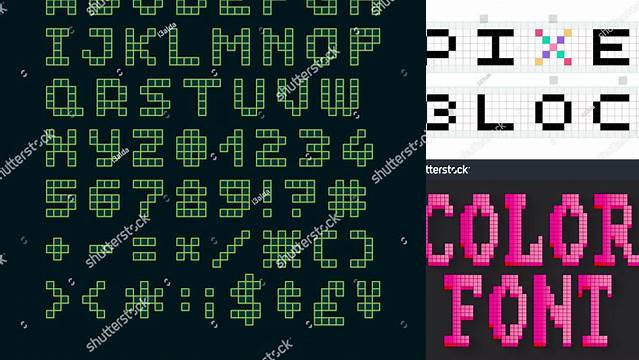
Hey guys! Are you looking to add a retro, techy, or unique touch to your designs? Pixel grid fonts are the perfect way to do it! These fonts, with their distinctive square or grid-like appearance, are inspired by old-school video games, early computer displays, and 8-bit graphics. They bring a nostalgic yet modern feel to any project, from logos and websites to posters and social media graphics. In this article, we're diving deep into the world of pixel grid fonts, exploring their uses, variations, and where you can find them for free. Let's get started!
Pixel Grid Fonts: An Introduction
So, what exactly are pixel grid fonts? As the name suggests, these fonts are constructed using a grid of pixels, creating a blocky, geometric aesthetic. This style harkens back to the early days of digital typography, where characters were literally built pixel by pixel on low-resolution screens. Today, pixel fonts are used intentionally to evoke a retro vibe, add a technical edge, or simply create visual interest. They're a fantastic choice when you want your typography to stand out and make a statement. Plus, there are tons of different styles and weights available, so you can find the perfect pixel font for your project. Whether you're designing a video game title, a futuristic website, or a cool poster, pixel grid fonts offer a unique and eye-catching solution. The beauty of these fonts lies in their simplicity and clarity, making them ideal for headlines, subheadings, and even short paragraphs. Let’s explore further and see how you can incorporate them into your work!
Using Pixel Grid Fonts in Design Projects
Using pixel grid fonts in your design projects can add a unique and retro touch that immediately grabs attention. These fonts are versatile and can be used in various creative applications, from website headers and logos to posters and game interfaces. When incorporating pixel fonts, it’s crucial to consider the overall tone and message of your design. These fonts often evoke a sense of nostalgia, so they work well for projects aiming for a vintage or techy feel. For example, if you’re designing a website for a retro gaming blog, a pixel font could be perfect for the headers and call-to-action buttons. In logo design, pixel fonts can give your brand a distinctive identity, especially if you’re targeting a tech-savvy audience. However, be mindful of readability, particularly in smaller sizes. It’s generally best to use pixel fonts for headlines and short text elements rather than lengthy paragraphs. Experiment with different font weights and sizes to find the right balance between style and clarity. By thoughtfully integrating pixel grid fonts into your projects, you can create designs that are both visually appealing and memorable.
Pixel Grid Fonts for Gaming
Pixel grid fonts are practically synonymous with the gaming world. Their blocky, retro aesthetic perfectly complements the visuals of classic video games and adds a touch of authenticity to modern indie games. If you're developing a game with a retro theme, using a pixel font for the interface, menus, and in-game text is almost essential. These fonts evoke a sense of nostalgia and instantly transport players back to the golden age of gaming. Moreover, pixel fonts are highly legible, even at small sizes, making them ideal for displaying scores, messages, and other important information on the screen. When choosing a pixel font for your game, consider the overall style and tone. A chunky, bold pixel font might be perfect for an action-packed arcade game, while a more refined pixel font could suit a puzzle or strategy game. Don't be afraid to experiment with different fonts to see what works best. Many game developers also use pixel fonts in their marketing materials, such as trailers and promotional graphics, to reinforce the game's visual identity. So, whether you're designing a retro-inspired platformer or a modern indie title, pixel grid fonts are a fantastic way to enhance the gaming experience.
Pixel Grid Fonts for Web Design
Incorporating pixel grid fonts into web design can give your site a unique and memorable look. These fonts are particularly effective for websites aiming for a retro, techy, or minimalist aesthetic. Pixel fonts can add character and personality to your headers, navigation menus, and other key design elements. When using pixel fonts on the web, it's crucial to consider readability. Due to their blocky nature, pixel fonts can sometimes be challenging to read at smaller sizes. Therefore, it's generally best to use them for headlines, short text snippets, and other prominent areas where legibility is less of a concern. You can also experiment with different font weights and sizes to optimize readability. Another important factor to consider is the overall design of your website. Pixel fonts work best when paired with clean, simple layouts and a limited color palette. This helps to maintain a cohesive and visually appealing look. Additionally, make sure the pixel font you choose is web-friendly and loads quickly to avoid slowing down your site's performance. By carefully integrating pixel grid fonts into your web design, you can create a site that stands out and effectively communicates your brand's message.
Pixel Grid Fonts and 8-bit Graphics
Pixel grid fonts and 8-bit graphics go hand in hand, forming a perfect match for designs that evoke a retro, nostalgic feel. The 8-bit aesthetic, characterized by its blocky, pixelated look, was prevalent in early video games and computer graphics. Using pixel fonts alongside 8-bit graphics creates a cohesive and authentic retro vibe. This combination is ideal for projects that aim to transport viewers back to the golden age of gaming or technology. When working with 8-bit graphics, pixel fonts provide the perfect textual complement, ensuring that all elements of your design align stylistically. Whether you're creating a retro game, a website with a vintage theme, or a social media campaign that taps into nostalgia, pixel fonts and 8-bit graphics are a winning combination. The key is to maintain consistency in the pixelation and blockiness across both the text and the visuals. This creates a unified and visually appealing design that captures the essence of the 8-bit era. So, embrace the pixelated charm and let your creativity flow!
Creating Your Own Pixel Grid Font
Ever thought about creating your own pixel grid font? It might sound intimidating, but it's actually a fun and rewarding process that allows you to craft a truly unique typeface. There are several software options available for font creation, ranging from free online tools to professional-grade applications. FontStruct is a popular free platform that’s specifically designed for creating grid-based fonts, making it an excellent choice for pixel fonts. For more advanced features and control, you might consider using software like FontLab or Glyphs. The basic process involves drawing each character on a pixel grid, carefully shaping the letters to achieve the desired look. It’s important to pay attention to spacing and kerning to ensure readability. Start by designing the basic alphabet (uppercase and lowercase), then move on to numbers, punctuation, and symbols. As you create your font, test it frequently in different sizes and contexts to see how it performs. Creating your own pixel grid font gives you complete creative control and allows you to develop a typeface that perfectly matches your unique style and design needs. So, why not give it a try and unleash your inner font designer?
Pixel Grid Font Styles and Variations
The world of pixel grid fonts is incredibly diverse, offering a wide range of styles and variations to suit any design project. From classic 8-bit fonts reminiscent of early video games to more modern and stylized pixel typefaces, there's a pixel font for every aesthetic. Some pixel fonts feature sharp, angular edges, while others have rounded corners for a softer look. Font weights can also vary significantly, with some pixel fonts being bold and chunky, and others being thin and delicate. Additionally, there are pixel fonts with unique embellishments and decorative elements, such as drop shadows, outlines, and textured fills. When choosing a pixel font, consider the overall tone and message of your design. A bold, blocky pixel font might be perfect for a high-energy project, while a more refined pixel font could be better suited for a sophisticated design. Experimenting with different styles and variations is key to finding the perfect pixel font that aligns with your creative vision. So, explore the vast landscape of pixel grid fonts and discover the endless possibilities!
Pixel Grid Font Generators Online
If you're looking for a quick and easy way to create pixelated text, online pixel grid font generators are your best friend. These tools allow you to instantly transform regular text into pixel-style lettering without the need for any specialized software or design skills. Many online generators offer customizable options, such as pixel size, font color, and background color, allowing you to tailor the output to your specific needs. Some generators even provide a selection of pre-designed pixel font styles to choose from, making the process even simpler. While these generators are great for creating quick mockups or graphics, they may not offer the same level of control and customization as dedicated font creation software. However, for simple projects or when you're on a tight deadline, online pixel grid font generators can be a lifesaver. Just type in your text, tweak the settings, and download your pixelated masterpiece in seconds. So, embrace the convenience and speed of online pixel font generators for your next project!
Best Pixel Grid Fonts for Logos
Choosing the right font for a logo is crucial, and pixel grid fonts can bring a unique, memorable touch to your brand identity. These fonts are particularly effective for tech companies, gaming brands, and businesses aiming for a retro or futuristic vibe. The blocky, geometric nature of pixel fonts can convey a sense of innovation, technology, and nostalgia, making them a compelling choice for logos. When selecting a pixel font for your logo, consider your brand's personality and target audience. A bold, impactful pixel font can make a strong statement, while a more refined pixel font can project a sense of sophistication. Ensure the font is legible and scalable, so your logo looks great in various sizes and applications. Some popular pixel grid fonts for logos include Press Start 2P, Pixelify Sans, and 8-Bit Operator. Experiment with different fonts and variations to find the perfect typeface that captures the essence of your brand. Remember, a well-chosen pixel font can make your logo stand out and leave a lasting impression.
Pixel Grid Fonts for Social Media
In the fast-paced world of social media, grabbing attention is key, and pixel grid fonts can help you do just that. These fonts add a unique and eye-catching element to your social media graphics, posts, and profile designs. Whether you're creating Instagram stories, Twitter headers, or Facebook ads, pixel fonts can help your content stand out from the crowd. Their retro, techy vibe is particularly appealing to audiences interested in gaming, technology, and vintage aesthetics. When using pixel fonts on social media, consider the platform's visual style and your brand's overall identity. A bold, playful pixel font might be perfect for a fun, lighthearted brand, while a more minimalist pixel font could suit a sophisticated brand. Make sure the font is legible, especially on smaller screens, and use it sparingly to avoid overwhelming your audience. Pixel fonts can be particularly effective for creating eye-catching headlines, captions, and call-to-action buttons. So, add a touch of pixelated flair to your social media presence and watch your engagement soar!
Pixel Grid Fonts and Typography Trends
Pixel grid fonts are more than just a retro throwback; they're a significant part of contemporary typography trends. The resurgence of pixel fonts reflects a broader interest in vintage aesthetics and digital nostalgia. These fonts offer a unique blend of retro charm and modern appeal, making them a popular choice for designers seeking to create visually striking and memorable designs. Pixel fonts are often used in combination with other modern typography styles to create interesting contrasts and visual hierarchies. Their distinct character makes them ideal for headlines, subheadings, and other prominent text elements. The current trend of incorporating pixel fonts into web design, branding, and marketing materials demonstrates their versatility and enduring appeal. As typography trends continue to evolve, pixel grid fonts are likely to remain a relevant and impactful choice for designers looking to add a touch of retro-futuristic flair to their work. So, stay ahead of the curve and embrace the pixelated revolution!
Pixel Grid Fonts in UI/UX Design
In the realm of UI/UX design, pixel grid fonts can be a powerful tool for creating interfaces that are both visually appealing and functional. These fonts can add a distinctive touch to your designs, especially when targeting users who appreciate a retro or tech-inspired aesthetic. Pixel fonts are particularly well-suited for interfaces that aim to evoke a sense of nostalgia, such as those for gaming apps or vintage-themed software. However, it's crucial to use pixel fonts judiciously in UI/UX design to ensure readability and usability. Due to their blocky nature, pixel fonts can sometimes be challenging to read at smaller sizes or in dense text blocks. Therefore, it's best to use them sparingly, focusing on headlines, labels, and other key elements. Additionally, consider the overall color scheme and contrast to optimize legibility. A well-chosen pixel font can enhance the user experience by adding personality and character to your interface, but it's essential to balance style with functionality. So, leverage the unique charm of pixel grid fonts to create UI/UX designs that are both engaging and user-friendly.
Pixel Grid Fonts for Print Design
While pixel grid fonts are often associated with digital media, they can also be effectively used in print design. These fonts can add a unique and eye-catching element to posters, flyers, brochures, and other printed materials. When incorporating pixel fonts into print design, it's important to consider the resolution and printing process. Pixel fonts tend to look best when printed at a high resolution to maintain their crisp, blocky appearance. Also, be mindful of the font size and readability, especially for smaller text elements. Pixel fonts can be particularly effective for headlines, subheadings, and other display text, adding a retro or techy touch to your print designs. They can also be used to create visually interesting patterns and textures. When pairing pixel fonts with other typefaces in print design, consider using clean, modern fonts for body text to create a balanced and legible layout. By thoughtfully integrating pixel grid fonts into your print projects, you can create designs that are both visually striking and memorable.
Pixel Grid Fonts: Legality and Licensing
When using pixel grid fonts in your projects, it's crucial to understand the legal aspects and licensing requirements. Like all fonts, pixel fonts are protected by copyright law, and their usage is governed by licensing agreements. Many free pixel fonts are available for personal use, but commercial use may require a specific license. Before using a pixel font in a commercial project, such as a logo, website, or marketing materials, carefully review the font's licensing terms. Websites like DaFont and Fontspace provide clear information about the licensing terms for each font they offer. If you're unsure about the licensing requirements, it's always best to contact the font's creator or distributor for clarification. Using a font without the appropriate license can lead to legal issues, so it's essential to ensure you have the necessary permissions. By respecting font licensing agreements, you support font designers and contribute to a fair and sustainable design ecosystem. So, always check the fine print and ensure you're using pixel grid fonts legally and ethically.
Pixel Grid Fonts and Nostalgia in Design
Pixel grid fonts are powerful tools for evoking nostalgia in design. Their blocky, retro aesthetic instantly transports viewers back to the early days of computers, video games, and digital technology. This nostalgic appeal makes pixel fonts a popular choice for projects that aim to connect with audiences on an emotional level. By using pixel fonts, designers can tap into the collective memory of a bygone era, creating a sense of familiarity and warmth. Pixel fonts are particularly effective for projects targeting audiences who grew up with 8-bit and 16-bit graphics, as they evoke a strong sense of childhood memories. Whether you're designing a retro-themed website, a vintage-inspired logo, or a nostalgic marketing campaign, pixel grid fonts can help you create a powerful connection with your audience. The key is to use them strategically, pairing them with other retro elements to create a cohesive and authentic look. So, harness the power of nostalgia and let pixel fonts add a touch of retro charm to your designs.
Pixel Grid Fonts in Game Development
In game development, pixel grid fonts are an indispensable element for creating authentic retro-style games. These fonts perfectly complement the pixelated visuals of classic video games, adding a touch of nostalgia and enhancing the overall gaming experience. Whether you're developing an 8-bit platformer, a 16-bit RPG, or any other type of retro game, pixel fonts are essential for UI elements, in-game text, and marketing materials. Their blocky, geometric appearance is instantly recognizable and evokes a strong sense of gaming history. When choosing a pixel font for your game, consider the game's style and tone. A chunky, bold pixel font might be ideal for an action-packed arcade game, while a more refined pixel font could suit a puzzle or strategy game. Legibility is also crucial, especially for small text elements such as scores and messages. Many game developers create custom pixel fonts to match their game's unique aesthetic. So, embrace the pixelated charm and let pixel grid fonts help you create a truly immersive and nostalgic gaming experience.
Combining Pixel Grid Fonts with Other Fonts
One of the most effective ways to use pixel grid fonts is by combining them with other font styles. This technique allows you to create visually interesting and dynamic typography that stands out. When pairing pixel fonts with other fonts, it's essential to consider contrast and balance. Pixel fonts often work well with clean, modern sans-serif fonts, which provide a sharp contrast to their blocky, retro appearance. You can use pixel fonts for headlines and subheadings, and a clean sans-serif font for body text, creating a clear visual hierarchy. Alternatively, you can pair pixel fonts with other retro-inspired fonts to create a cohesive vintage look. Experiment with different font combinations to find the perfect balance for your design. Avoid using too many fonts in a single design, as this can create a cluttered and confusing look. By carefully combining pixel grid fonts with other fonts, you can create typography that is both visually appealing and highly legible. So, explore the possibilities and let your creativity shine!
Pixel Grid Fonts and Brand Identity
Using pixel grid fonts in your brand identity can give your brand a unique and memorable personality. These fonts are particularly effective for brands that want to convey a sense of innovation, technology, or nostalgia. Pixel fonts can help your brand stand out from the competition and create a lasting impression on your target audience. When incorporating pixel fonts into your brand identity, consider your brand's values and target market. A pixel font might be perfect for a tech startup, a gaming company, or a brand that embraces a retro aesthetic. However, it might not be the best choice for a luxury brand or a company that wants to project a more traditional image. Ensure the pixel font you choose aligns with your brand's overall visual identity and message. Use it consistently across your logo, website, marketing materials, and social media presence to create a cohesive brand experience. A well-chosen pixel font can be a powerful tool for building brand recognition and loyalty. So, explore the possibilities and let pixel grid fonts help you create a brand identity that is both distinctive and impactful.
Pixel Grid Fonts in Motion Graphics
In motion graphics, pixel grid fonts can add a dynamic and engaging element to your animations and video projects. These fonts are particularly well-suited for projects that aim to create a retro, techy, or futuristic vibe. Pixel fonts can be used for titles, credits, lower thirds, and other on-screen text elements. Their blocky, geometric appearance creates a visually striking effect that grabs attention. When using pixel fonts in motion graphics, consider the animation style and pacing. Pixel fonts often work well with fast-paced, energetic animations that reflect their retro-digital aesthetic. You can also use them to create interesting transitions and visual effects. Experiment with different font weights, sizes, and colors to find the perfect look for your project. Ensure the font is legible, especially for short on-screen durations. By thoughtfully incorporating pixel grid fonts into your motion graphics, you can create videos and animations that are both visually compelling and memorable. So, add a touch of pixelated flair to your motion graphics and watch your projects come to life!
Pixel Grid Fonts for Retro-Themed Projects
If you're working on a retro-themed project, pixel grid fonts are an absolute must-have. These fonts are essential for capturing the authentic look and feel of classic video games, vintage computers, and early digital technology. Whether you're designing a retro website, a vintage-inspired poster, or a nostalgic marketing campaign, pixel fonts can help you transport your audience back in time. Their blocky, geometric appearance is instantly recognizable and evokes a strong sense of nostalgia. When using pixel fonts for retro-themed projects, consider the specific era or style you're trying to emulate. Different pixel fonts can evoke different periods and aesthetics. For example, a chunky, 8-bit pixel font might be perfect for a project inspired by early arcade games, while a more refined pixel font could suit a design that references 16-bit consoles. Pay attention to the details, such as color palettes and graphic elements, to create a cohesive and authentic retro look. Pixel grid fonts are the key to unlocking the nostalgic charm of your retro-themed projects. So, embrace the vintage vibes and let your creativity flow!
Pixel Grid Fonts for Sci-Fi Designs
For sci-fi designs, pixel grid fonts can bring a unique blend of retro and futuristic aesthetics. These fonts evoke a sense of technology, innovation, and a connection to the digital age, making them a great fit for projects set in a cyberpunk or retro-futuristic world. The blocky, geometric style of pixel fonts can suggest the interfaces and displays of advanced technology, while their vintage feel adds a layer of depth and history to your designs. When incorporating pixel fonts into sci-fi projects, consider the overall tone and setting. A bold, angular pixel font might be perfect for a gritty, dystopian design, while a more streamlined pixel font could suit a sleek, futuristic aesthetic. Experiment with different font weights and sizes to create visual hierarchy and emphasis. Pair pixel fonts with other sci-fi design elements, such as neon colors, geometric patterns, and circuit board textures, to create a cohesive and immersive visual experience. So, let pixel grid fonts add a touch of technological flair to your sci-fi designs and transport your audience to another world!
Optimizing Pixel Grid Fonts for Readability
While pixel grid fonts are visually striking, they can sometimes be challenging to read, especially at smaller sizes. Optimizing pixel fonts for readability is crucial, particularly when using them in UI/UX design or for body text. Here are some tips for enhancing the legibility of pixel fonts: Choose a font with clear letterforms and adequate spacing. Some pixel fonts have more distinct characters than others, making them easier to read. Increase the font size. Pixel fonts tend to be more legible at larger sizes, so don't be afraid to bump up the font size. Adjust the letter spacing and line height. Adding a little extra space between letters and lines can significantly improve readability. Use a high-contrast color scheme. Ensure there's a strong contrast between the text color and the background color to make the text stand out. Avoid using pixel fonts for long paragraphs of text. Pixel fonts are best suited for headlines, subheadings, and other short text elements. Test the font on different devices and screen sizes. Make sure the font looks legible on various devices and resolutions. By following these tips, you can optimize pixel grid fonts for readability and ensure your designs are both visually appealing and user-friendly.
The Future of Pixel Grid Fonts
What's the future of pixel grid fonts? While they've experienced a resurgence in popularity due to the revival of retro aesthetics, their unique charm and versatility suggest they'll continue to be relevant in design for years to come. As technology evolves, pixel fonts might find new applications in emerging fields like virtual reality and augmented reality, where their geometric nature can create a sense of digital immersion. We may also see new variations and interpretations of pixel fonts, blending their retro appeal with modern design trends. Perhaps AI and generative design tools will be used to create custom pixel fonts with even greater precision and creativity. Whether used for nostalgic throwbacks or futuristic visions, pixel grid fonts offer a distinctive visual language that resonates with audiences across generations. Their enduring appeal lies in their ability to evoke a sense of history while also feeling fresh and innovative. So, keep an eye on pixel grid fonts – they're sure to play a significant role in the future of typography and design.
Free Pixel Grid Font Resources
Finding the perfect pixel grid font doesn't have to break the bank. There are numerous resources online where you can download high-quality pixel fonts for free. Websites like DaFont, Fontspace, and Google Fonts offer a vast selection of pixel-style fonts, many of which are free for personal and even commercial use. When browsing these sites, be sure to check the licensing agreements to ensure you're using the fonts legally. Another great resource is Behance, where designers often share their font creations, sometimes for free. You can also find free pixel font generators online, which allow you to quickly create pixelated text without the need for specialized software. These generators are great for creating quick mockups or graphics. When downloading free fonts, it's essential to use reputable sources to avoid malware or copyright issues. By exploring these free pixel grid font resources, you can build a diverse collection of typefaces and add a touch of retro charm to your designs without spending a fortune. So, dive in and discover the world of free pixel fonts!